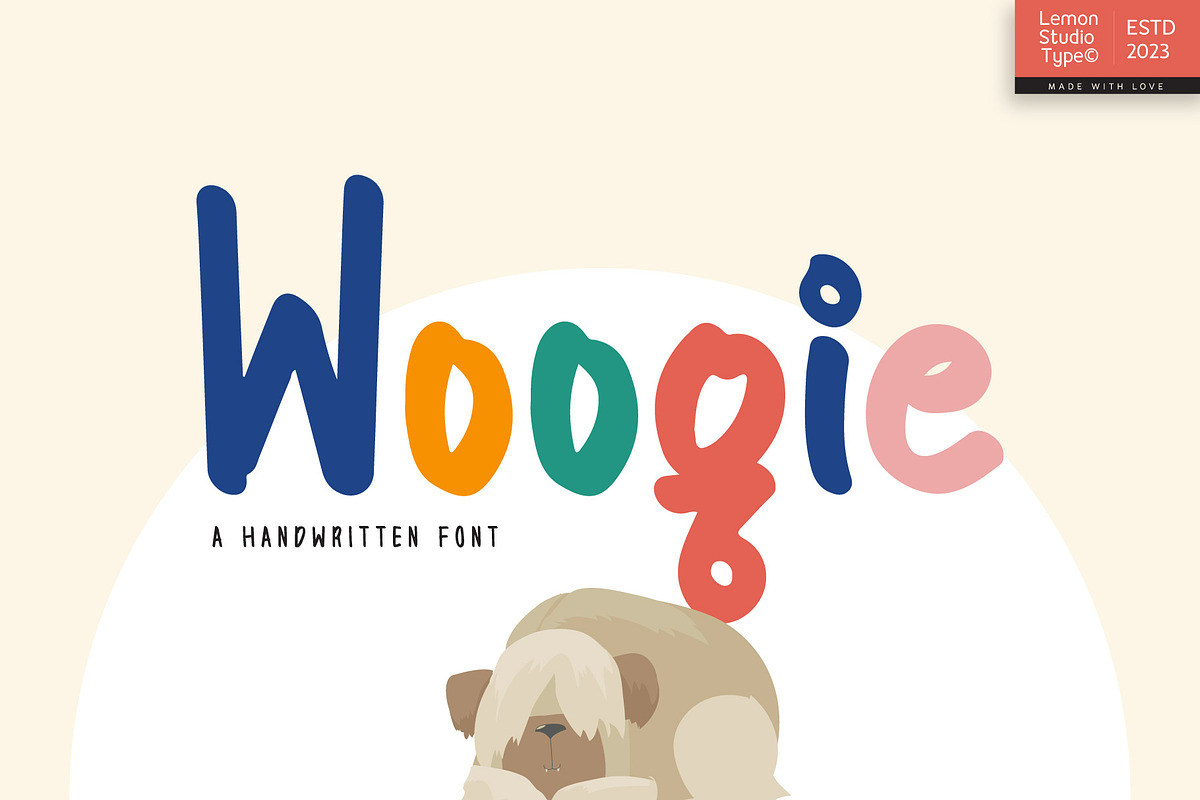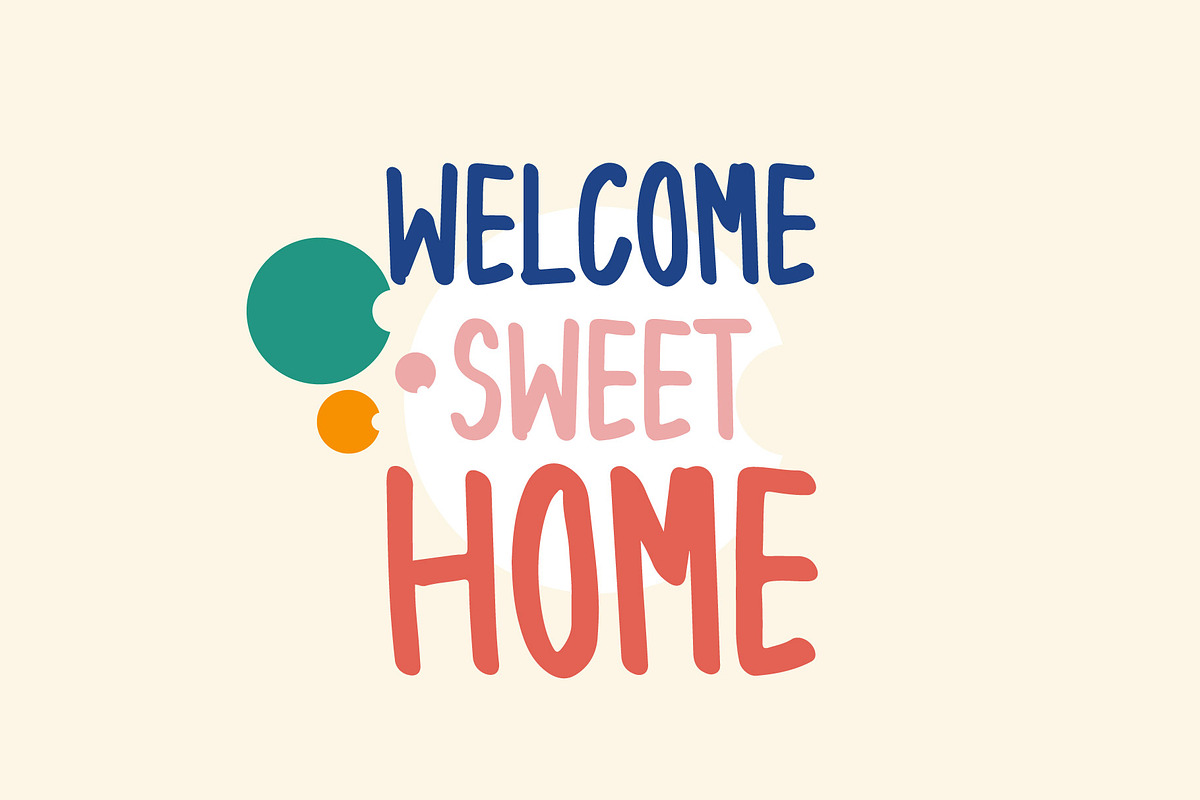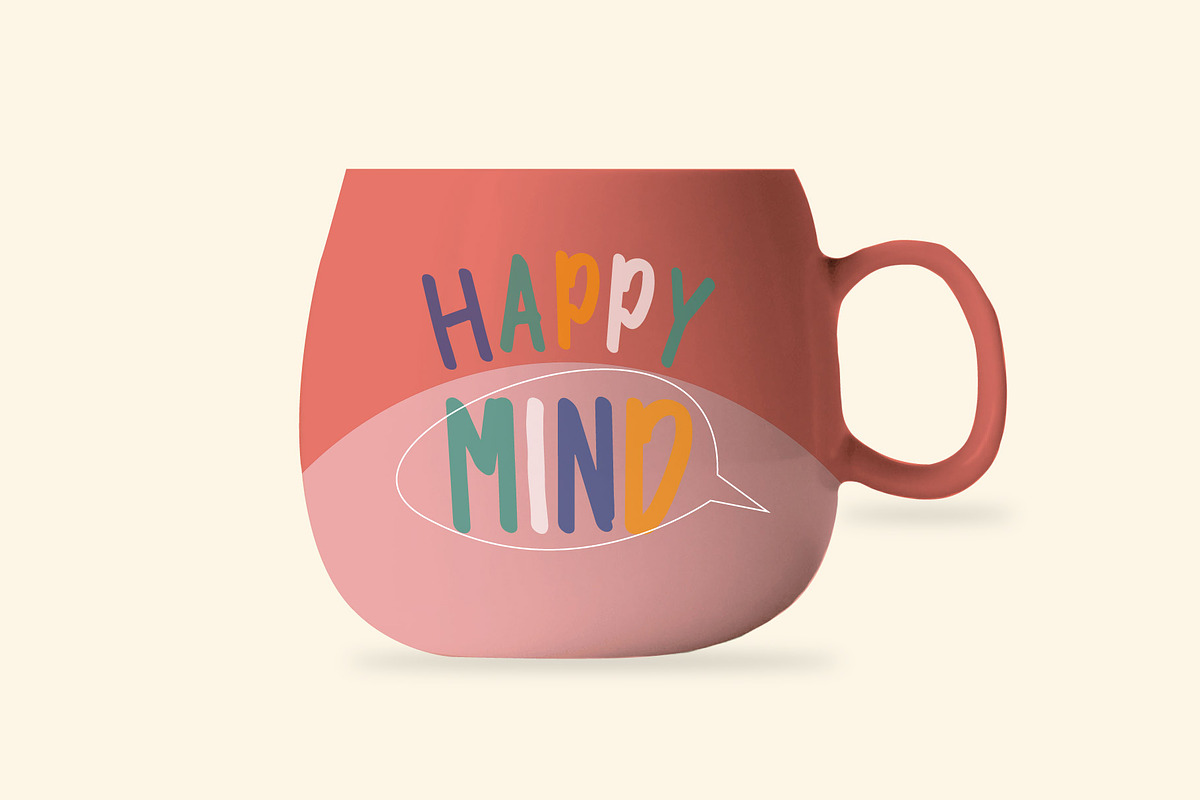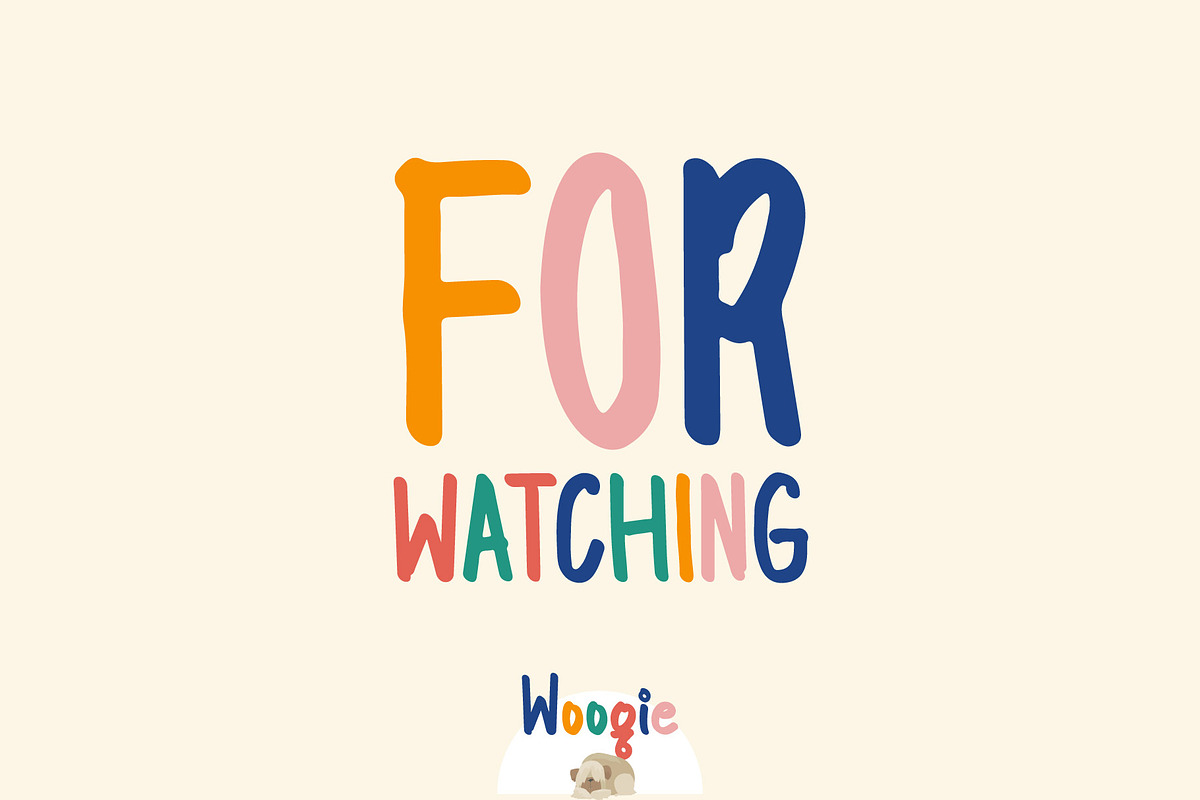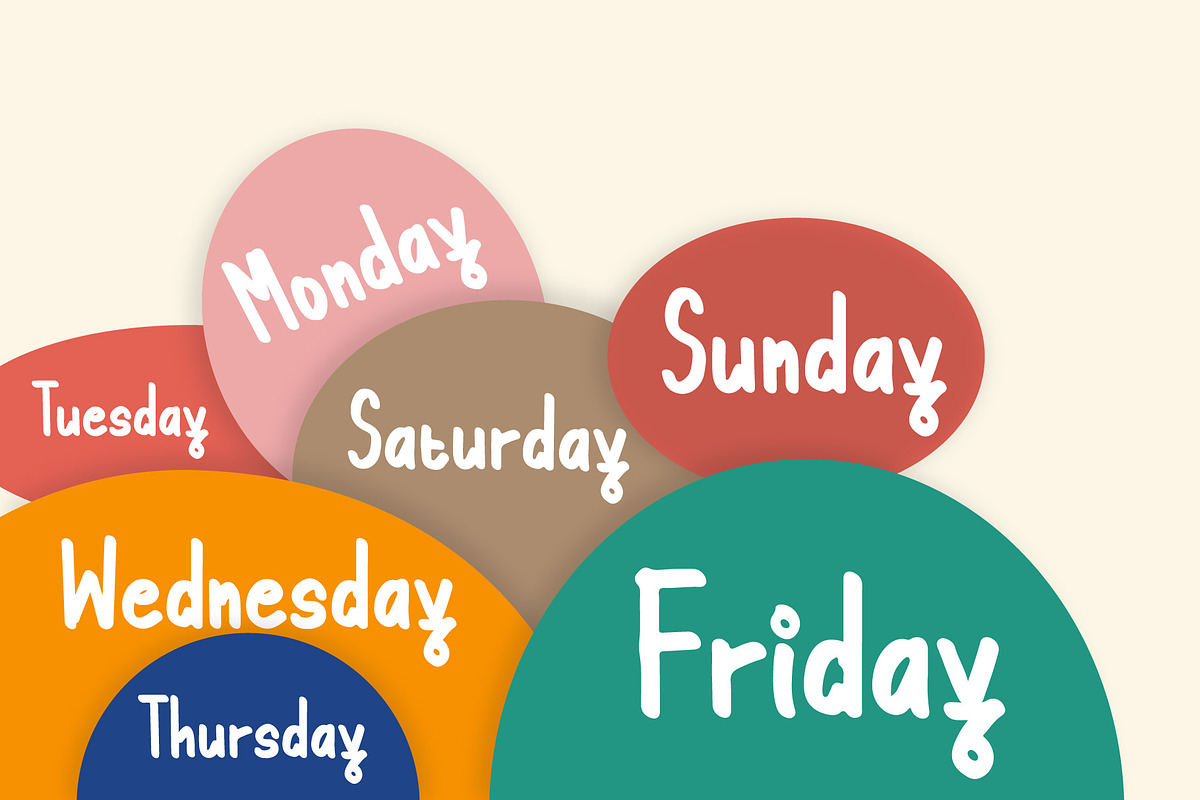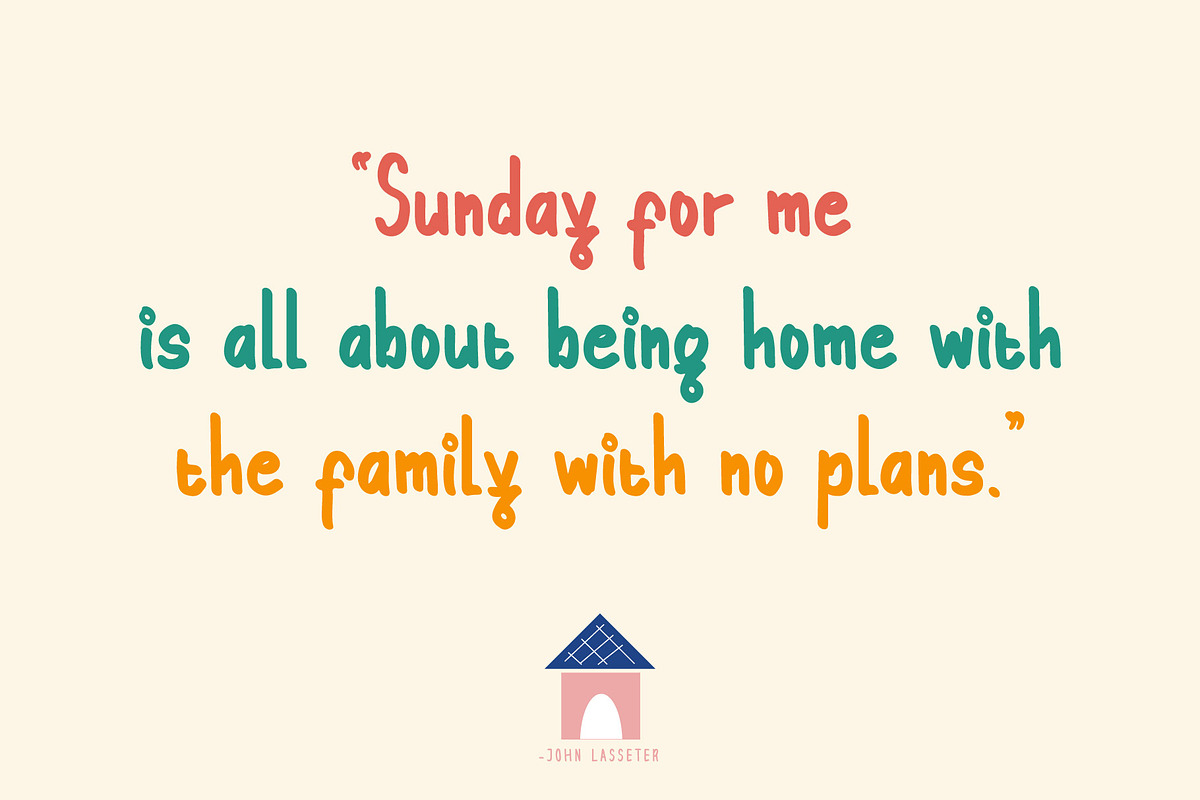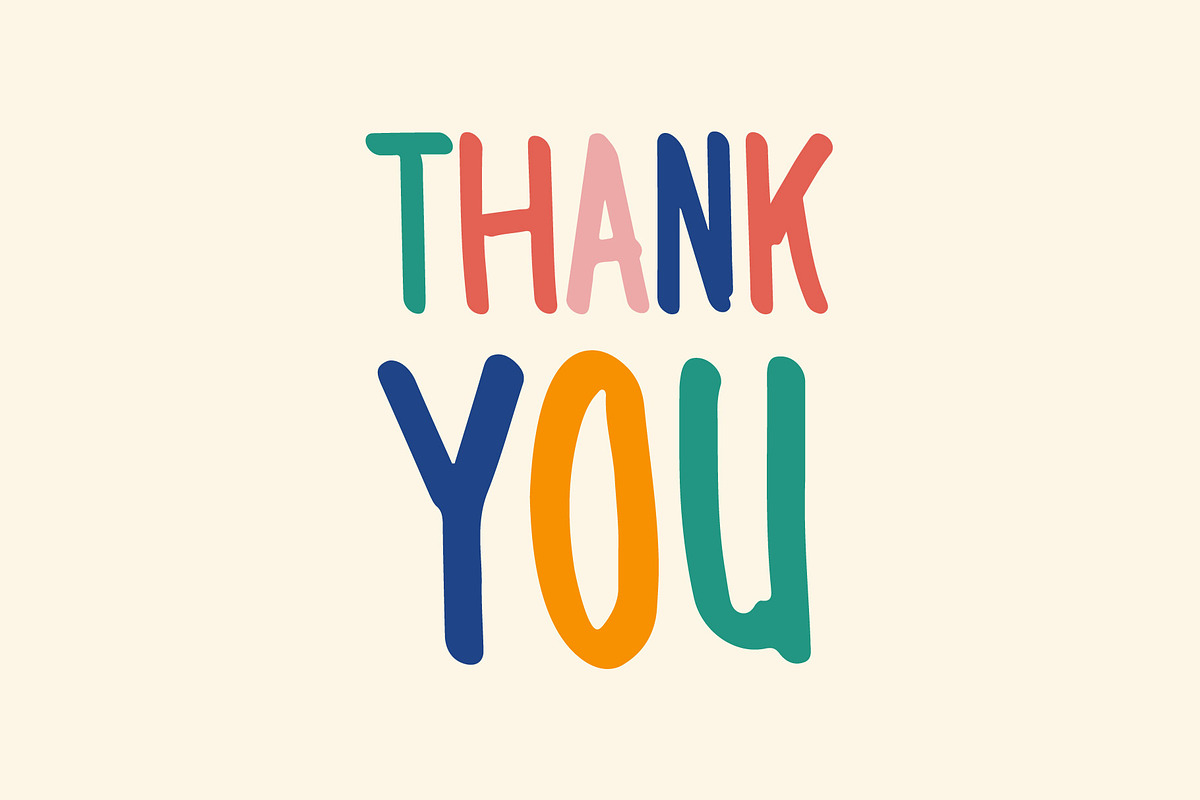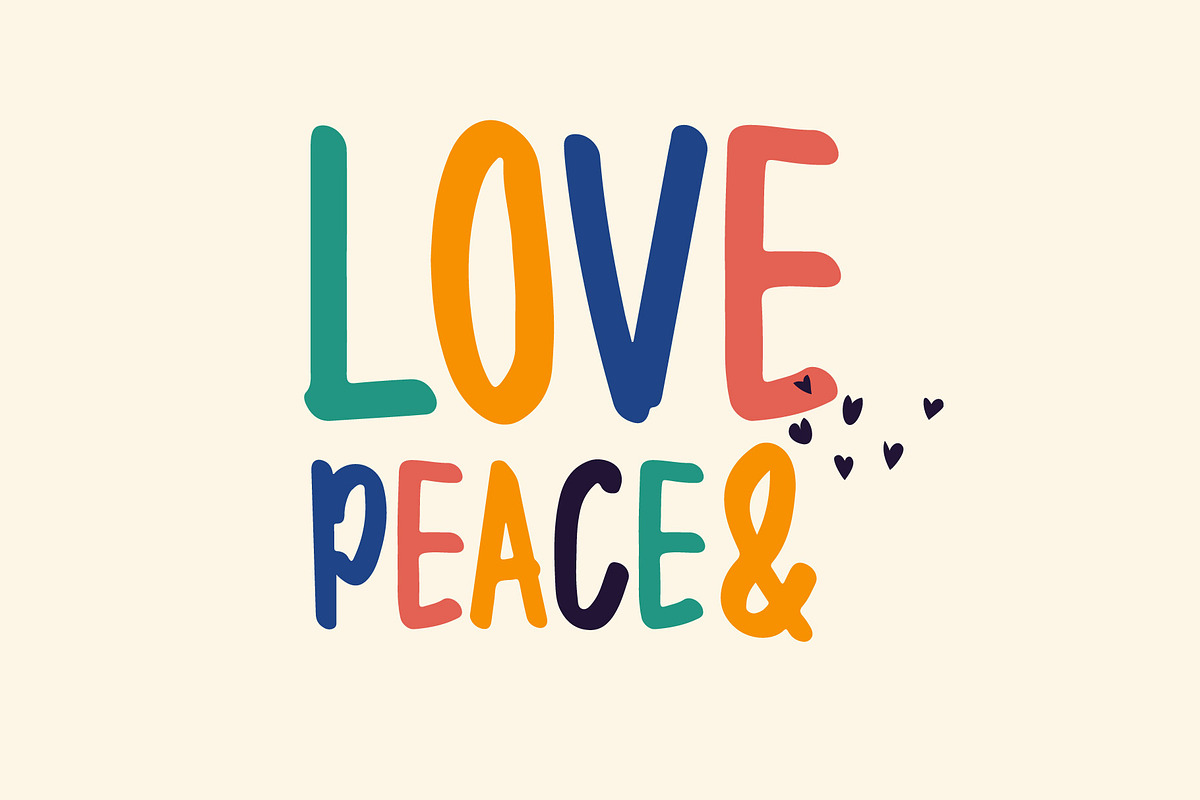
Woogie - Cute Handwritten
Woogie is a cute display font and it was handwritten. Gives a sweet and natural impression. It is perfect for design needs for greeting cards, children's clothing mockups, headings, or many more.